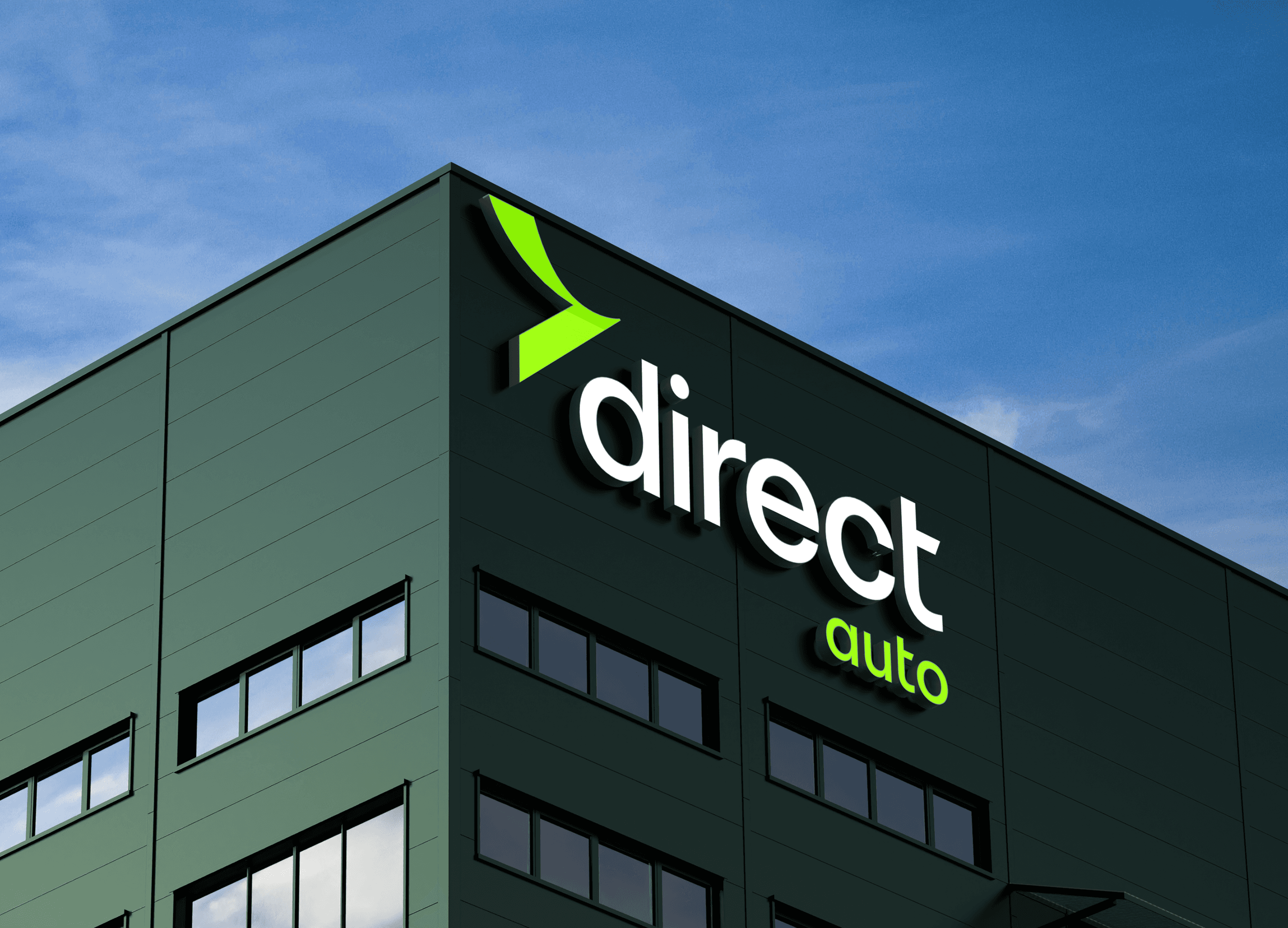
Direct Sans
Direct Group is a Czech financial and technology group focused on insurance, mobility, financing, investment, and digital services. Its companies aim to simplify traditionally complex industries through transparent products, customer-friendly communication, and digital-first solutions. The group has become one of the most visible challengers to established players in the Czech market by emphasizing innovation, accessibility, and user experience.
This monolinear typeface is distinguished by its curved legs and occasional angled terminals on vertical strokes. Together with the logo and the brand’s distinctive color palette, it forms the driving force of the visual identity, making it unmistakably recognizable across all areas of the group’s activities.